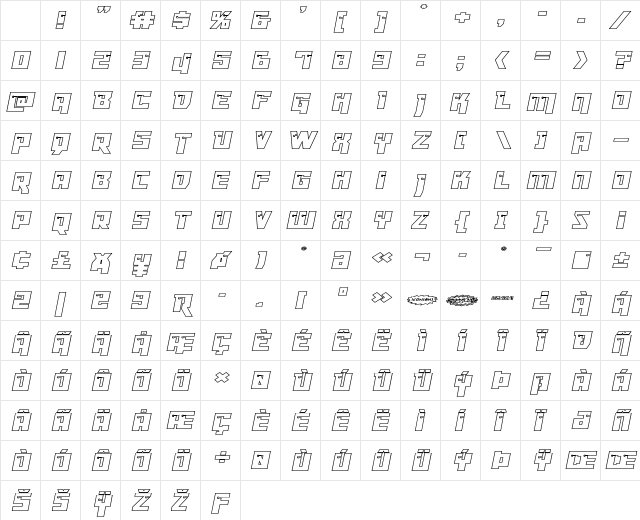
Complete Dangerbot Expanded Outline glyph index. Displaying only characters natively supported by Dangerbot Expanded Outline font.
Dangerbot is built around its visual character rather than neutral utility - its distinctive forms are designed to make an impression at display sizes.
Font Pairing: Pair with a clean neutral sans-serif for body copy to let Dangerbot's character lead without overwhelming the composition.
Pro Tip: Use Dangerbot exclusively at display sizes - it was designed to be seen, not read at length. Let a neutral companion handle body copy.